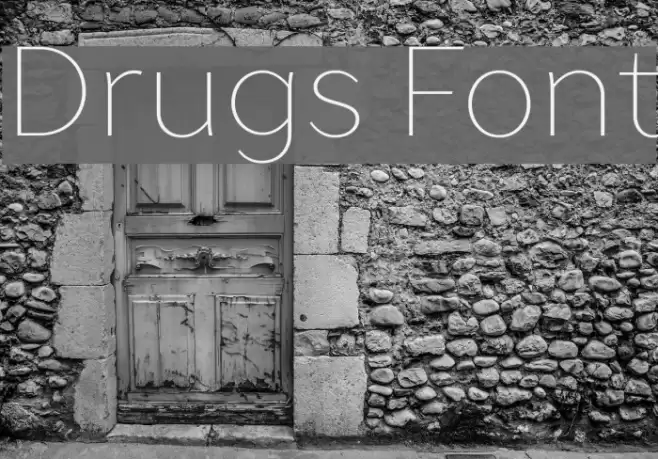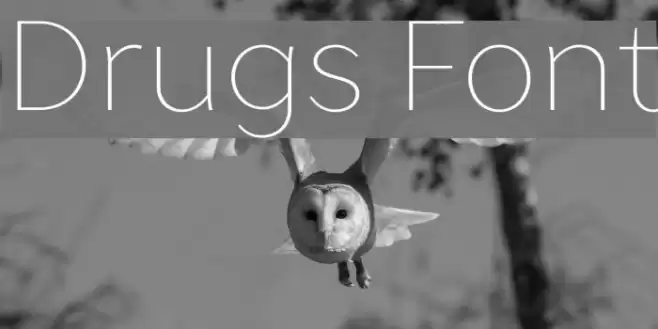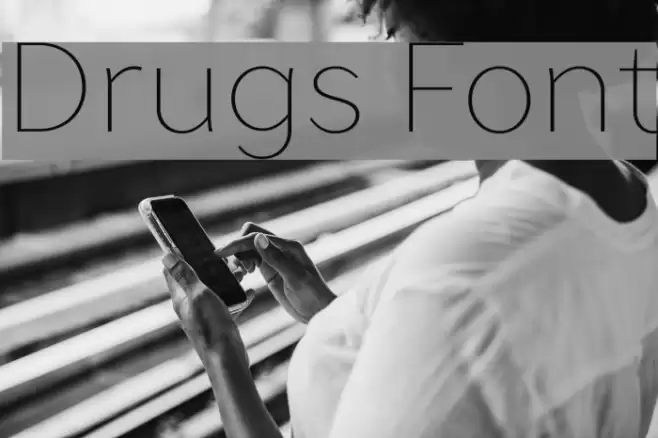
Drugs Font
Drugs Description
This font features a clean and modern sans-serif design, characterized by its thin and elegant lines. The characters are well-proportioned with a consistent stroke width, giving it a sleek and minimalist appearance. The uppercase and lowercase letters maintain a harmonious balance, while the numerals and special characters are crafted with precision. This font's simplicity and clarity make it highly versatile for various design applications.
A modern, thin sans-serif font with a minimalist style from Uncategorized fonts.
- Proposed Projects: Ideal for branding, editorial design, web design, and minimalist graphic projects.
- Weight: Light
- Use Case: Headlines, Body text, Logos